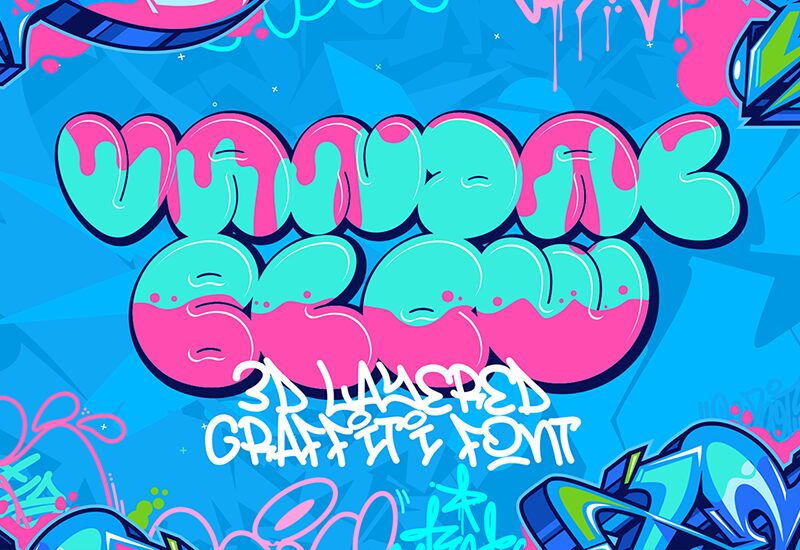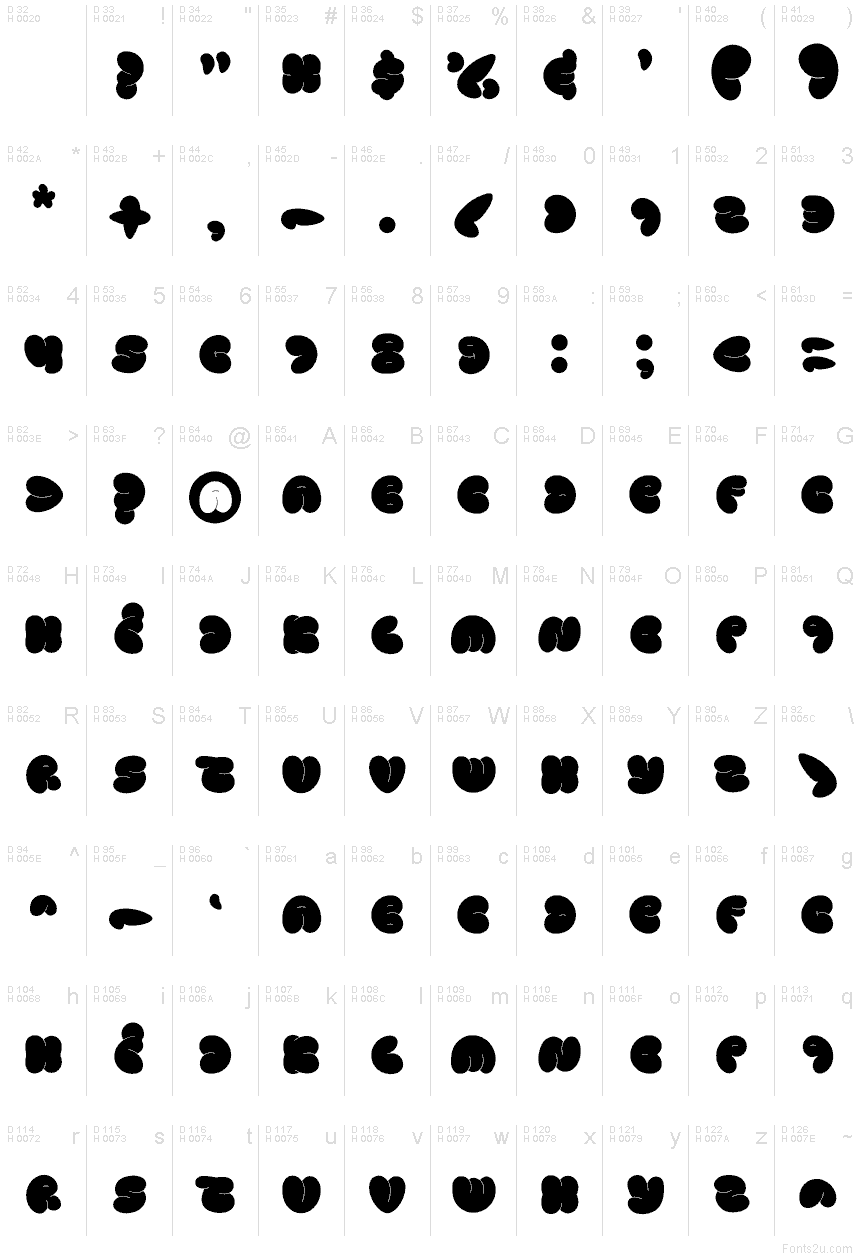
Vandal Blow Graffiti font by Cikareotype Studio is a bold and cohesive expression of modern graffiti style. It features a rounded, approachable, and wholesome character that is perfect for adding a whimsical touch to your creative projects. Ideal for anyone wanting to recreate that retro-era ambiance while still maintaining flexibility in the applications.
Such contemporary appeal makes this free display font outstanding for logos, titles, blog headers, magazine covers, social media posts, music album covers, posters and banners, games design, mobile applications design or development projects.